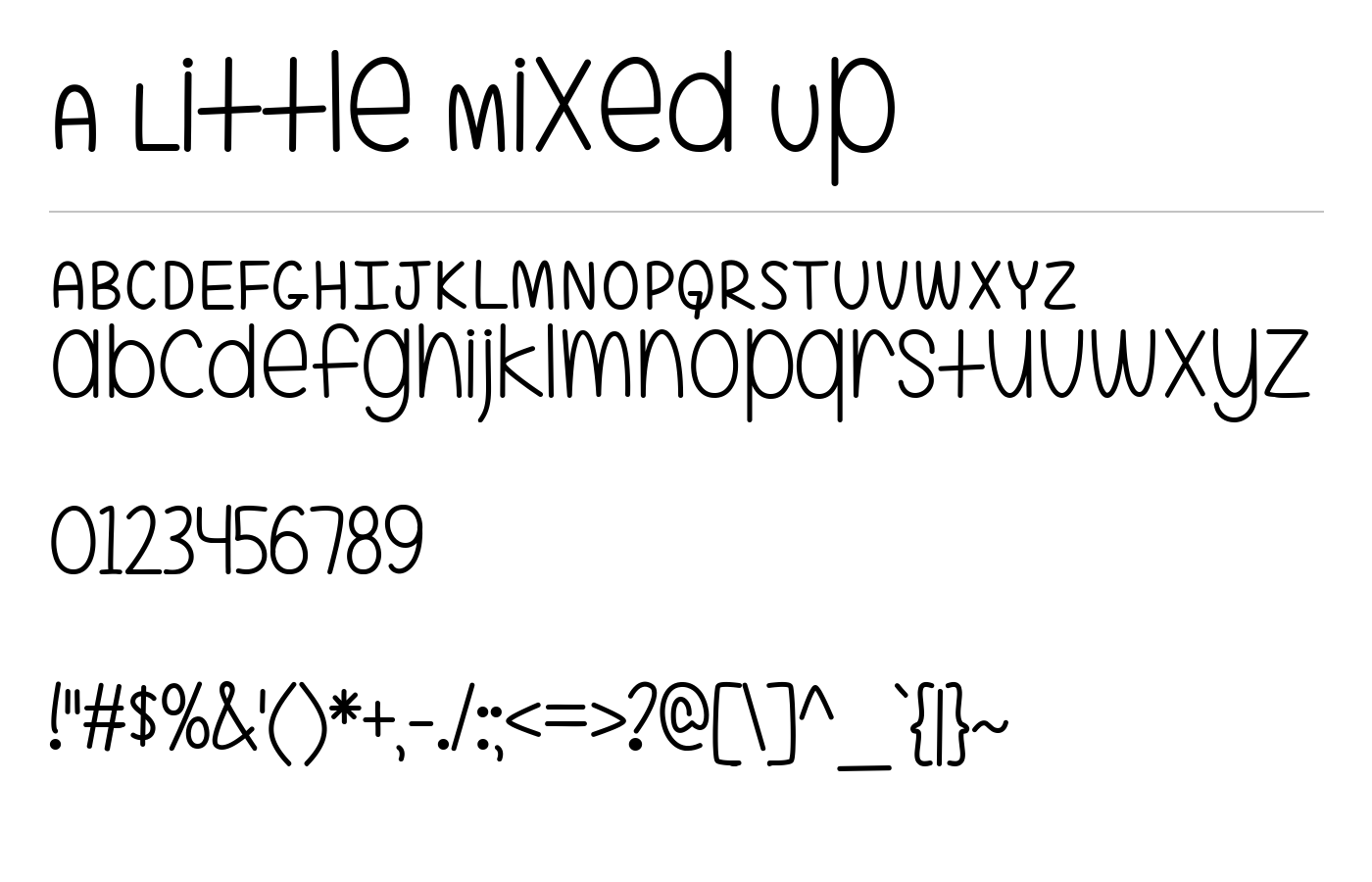
A Little Mixed Up is a playful, casual sans serif font with a hand-drawn feel, featuring tall, narrow letterforms and uneven stroke heights that create a quirky, whimsical vibe. Its light weight and airy spacing make it perfect for informal designs, children’s books, invitations, or any project seeking a friendly and approachable look. This font works best in headlines and short texts where its unique personality can shine.
A Little Mixed Up Font
About A Little Mixed Up Font
| Font family | A Little Mixed Up Font |
| Designer | Misti's Fonts (Misti Hammers) |